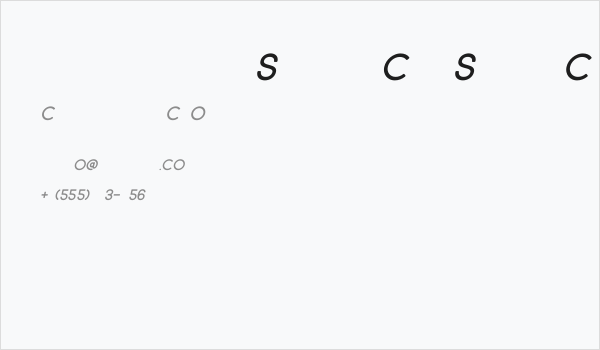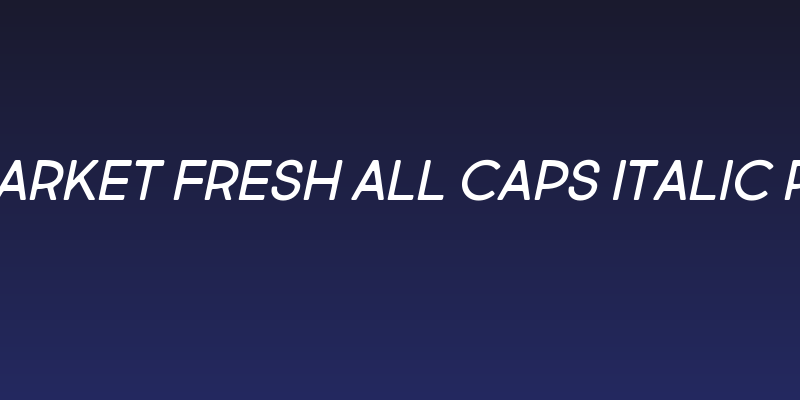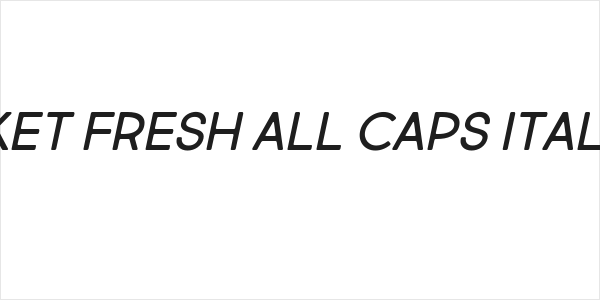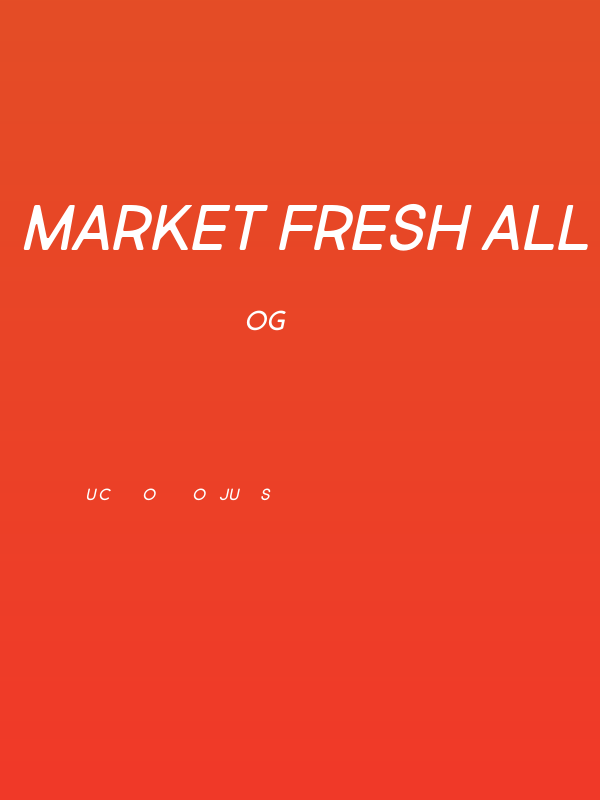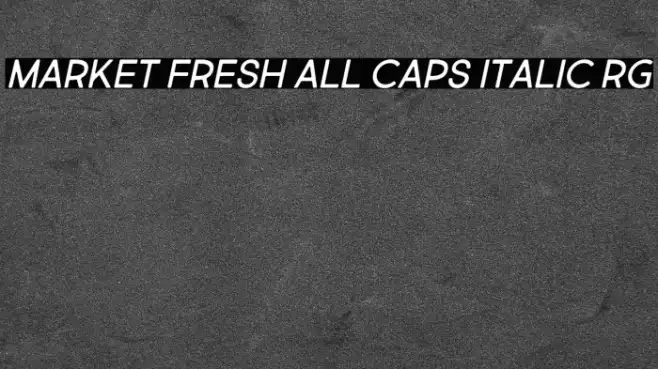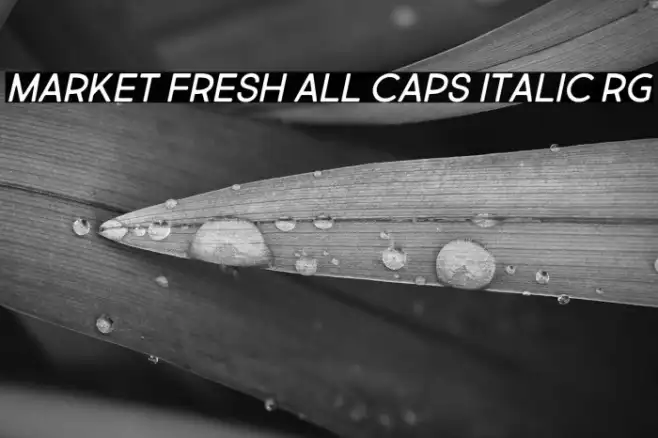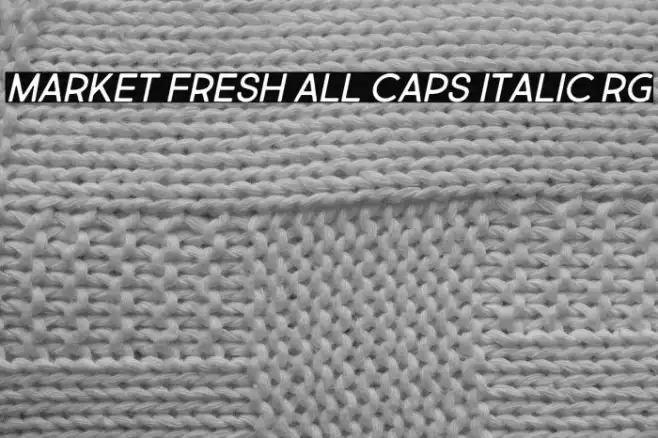
Market Fresh All Caps Italic Rg Font
Market Fresh All Caps Italic Rg Description
This font features a clean and modern design with an italic slant, giving it a dynamic and forward-moving appearance. The characters are all uppercase, with a consistent stroke width that maintains readability and clarity. The numerals and special characters are designed to match the overall style, ensuring a cohesive look across different uses. The font's simplicity and elegance make it suitable for a variety of applications, from branding to editorial design.
| Proposed Projects | Ideal for branding, advertising, editorial design, and any project requiring a modern and dynamic typeface. |